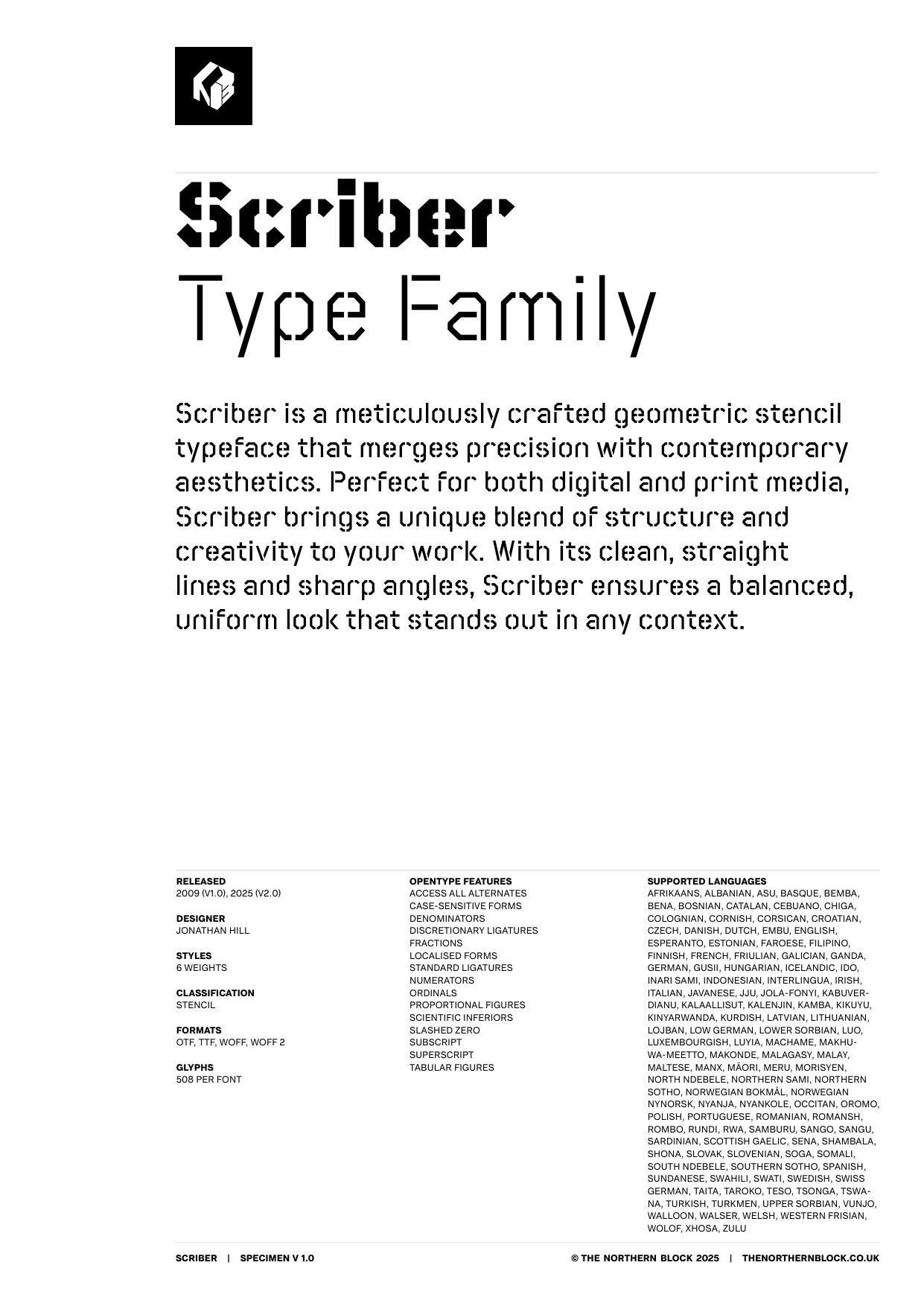
Scriber
Scriber is a meticulously crafted geometric stencil typeface that merges precision with contemporary aesthetics. Perfect for both digital and print media, Scriber brings a unique blend of structure and creativity to your work. With its clean, straight lines and sharp angles, Scriber ensures a balanced, uniform look that stands out in any context. The distinctive breaks within the strokes of each letter add an industrial flair, making Scriber ideal for projects that require a modern, technical feel.
Included in the font are over 500 characters across six weights, offering OpenType features such as digital numerals, tabular figures, numerators, denominators, inferior and superior numbers, fractions, ligatures, and case-sensitive forms, with language support for Western, Southern, and Central European scripts.